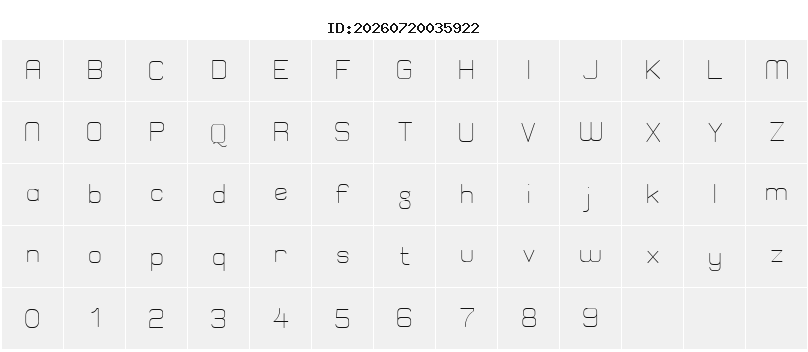
• Font Name: Elgethy Est
• Manufacturer: Graham Meade
Elgethy Est.ttf is a modern, elegant sans-serif font designed for ultimate readability and visual harmony. Perfect for branding, headlines, web design, and print materials.